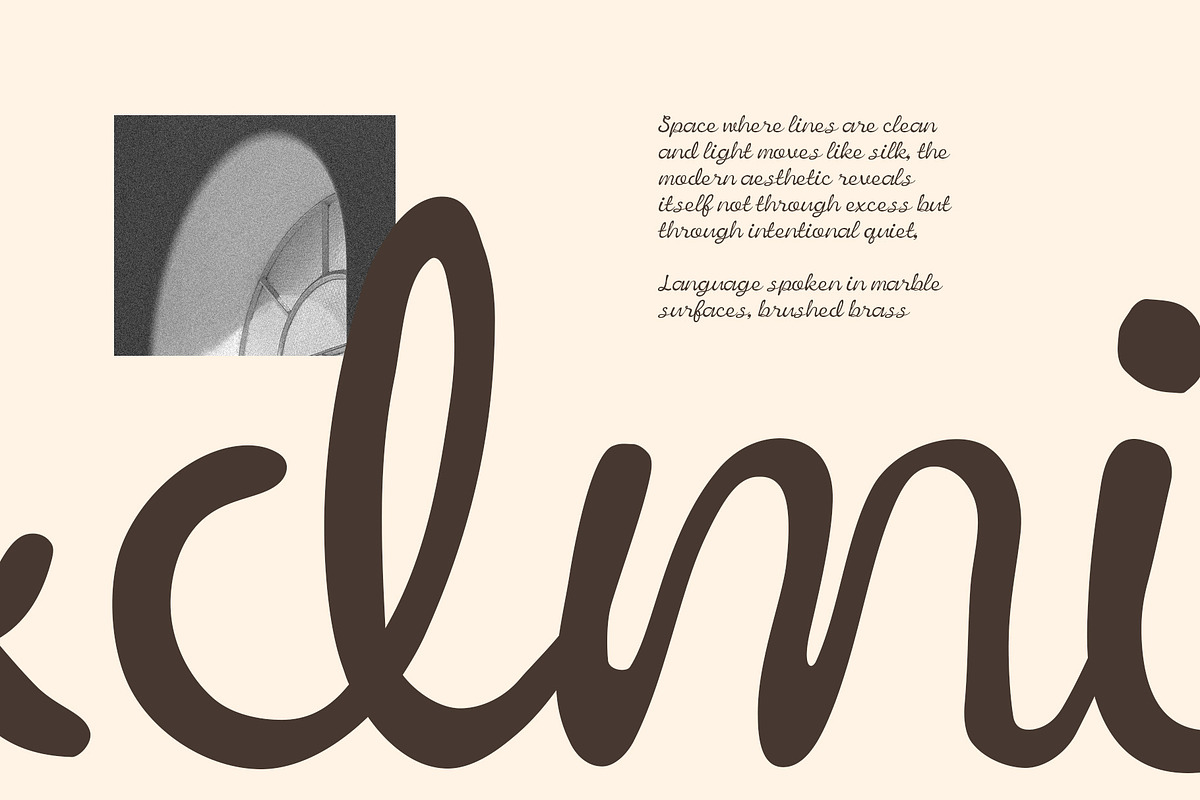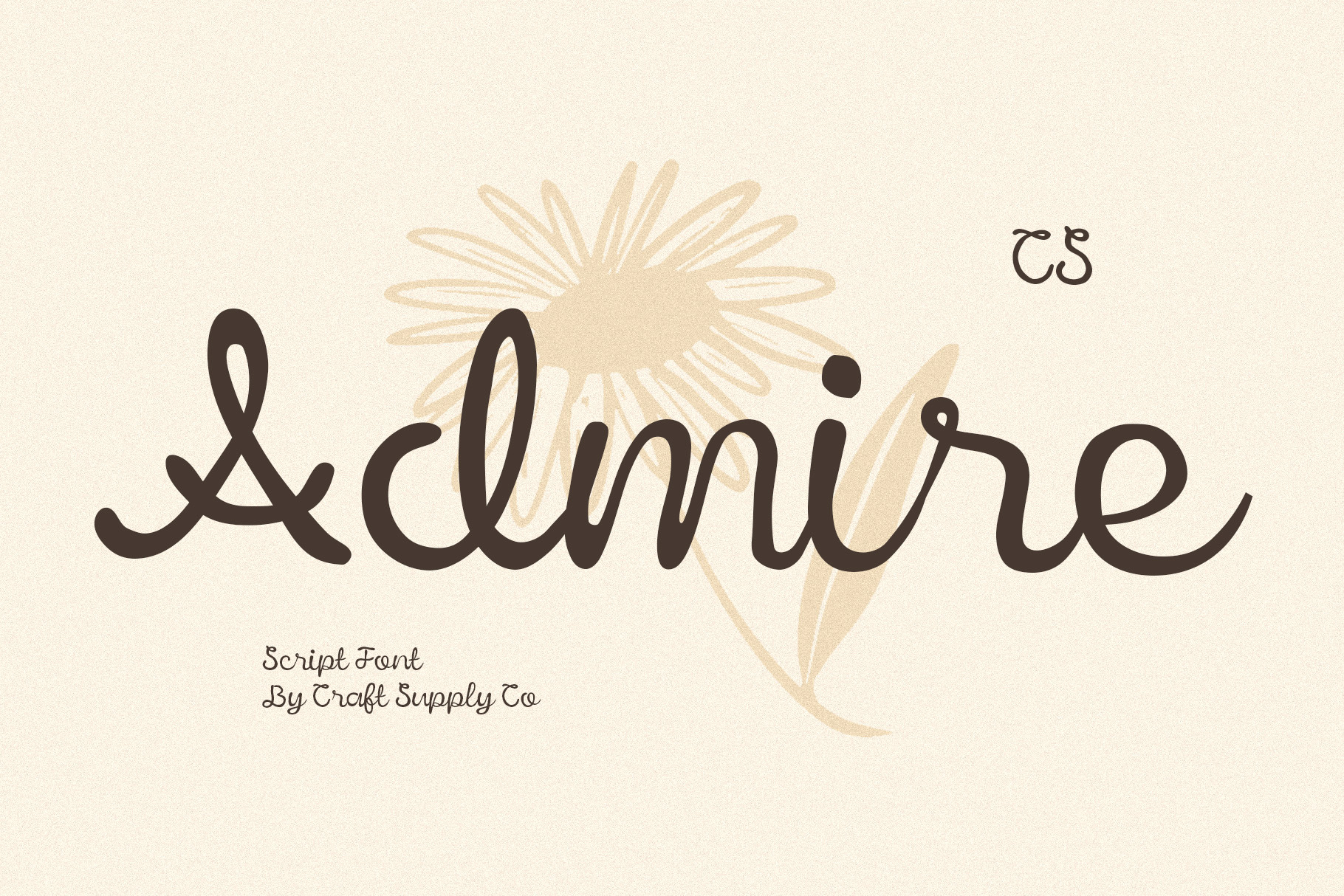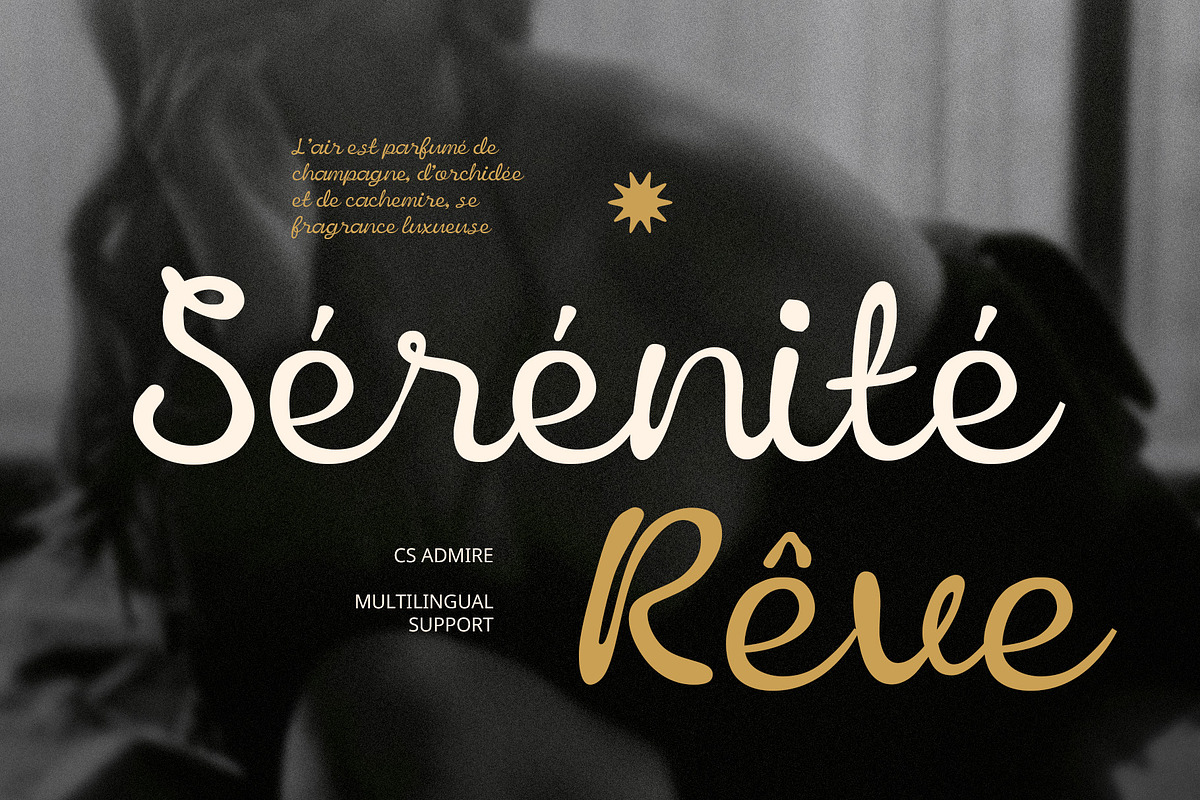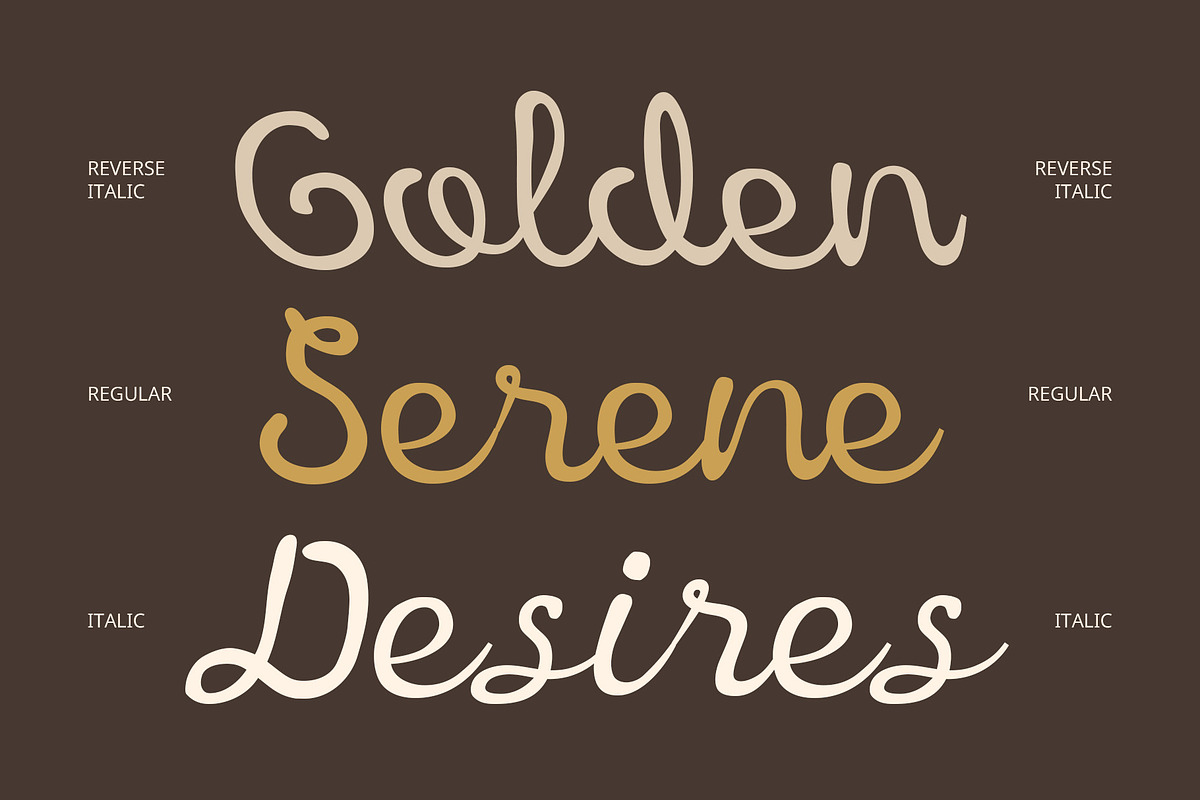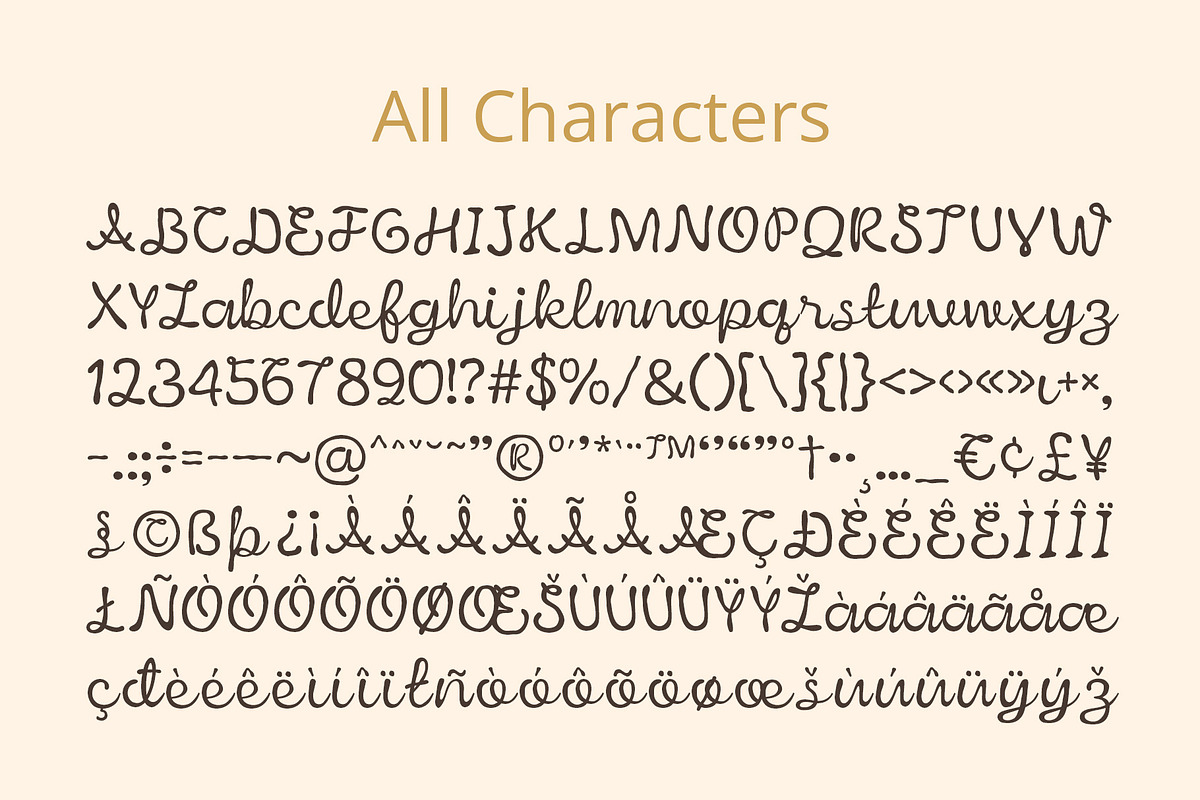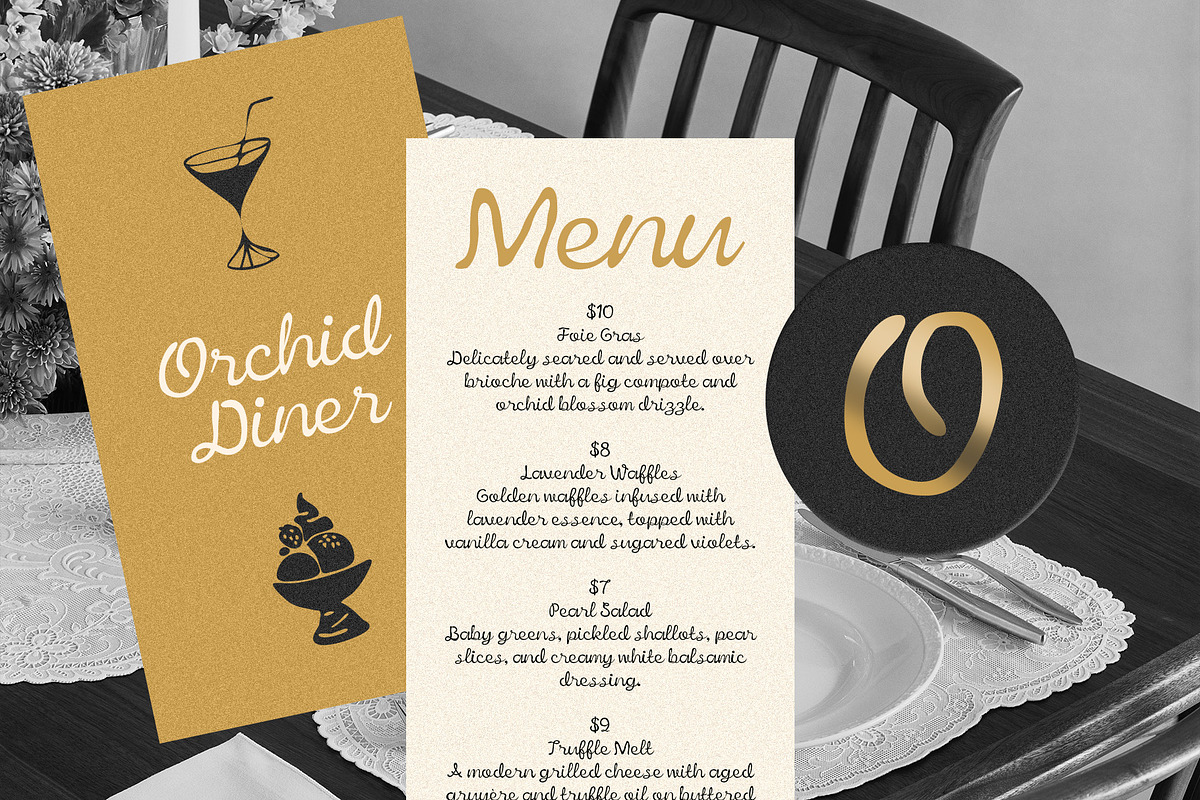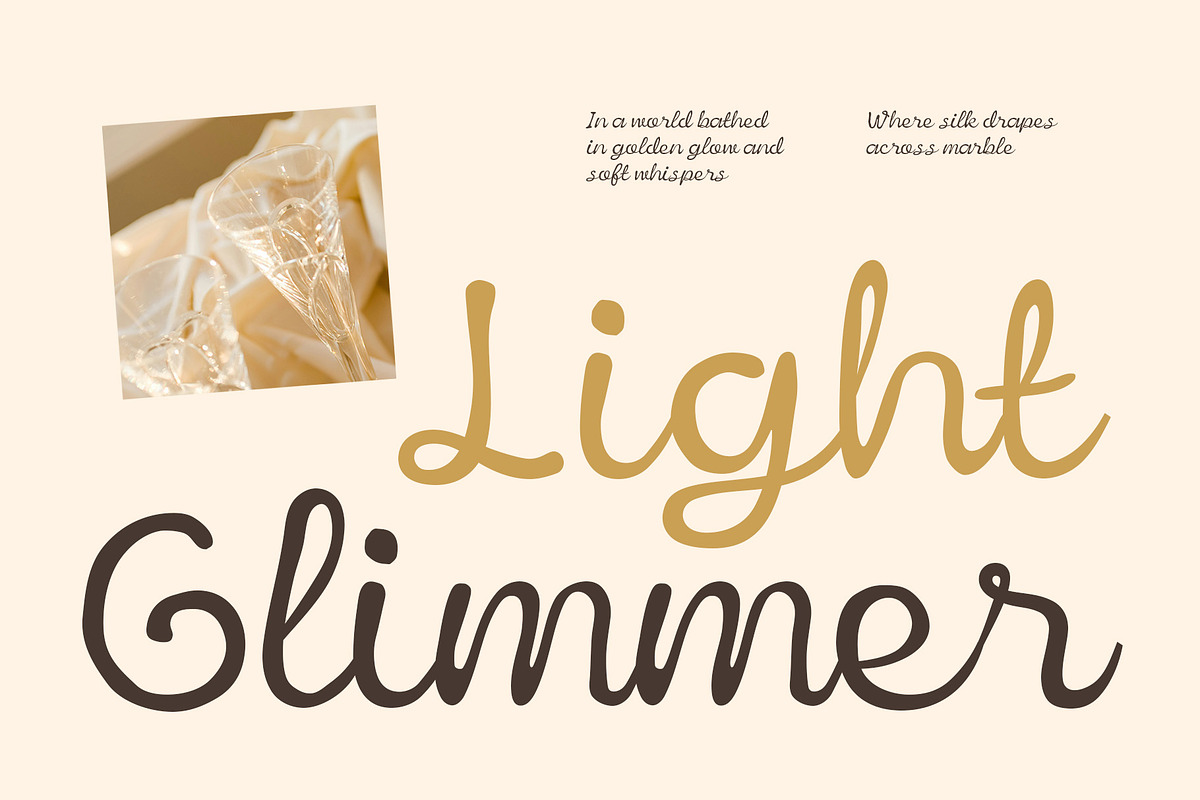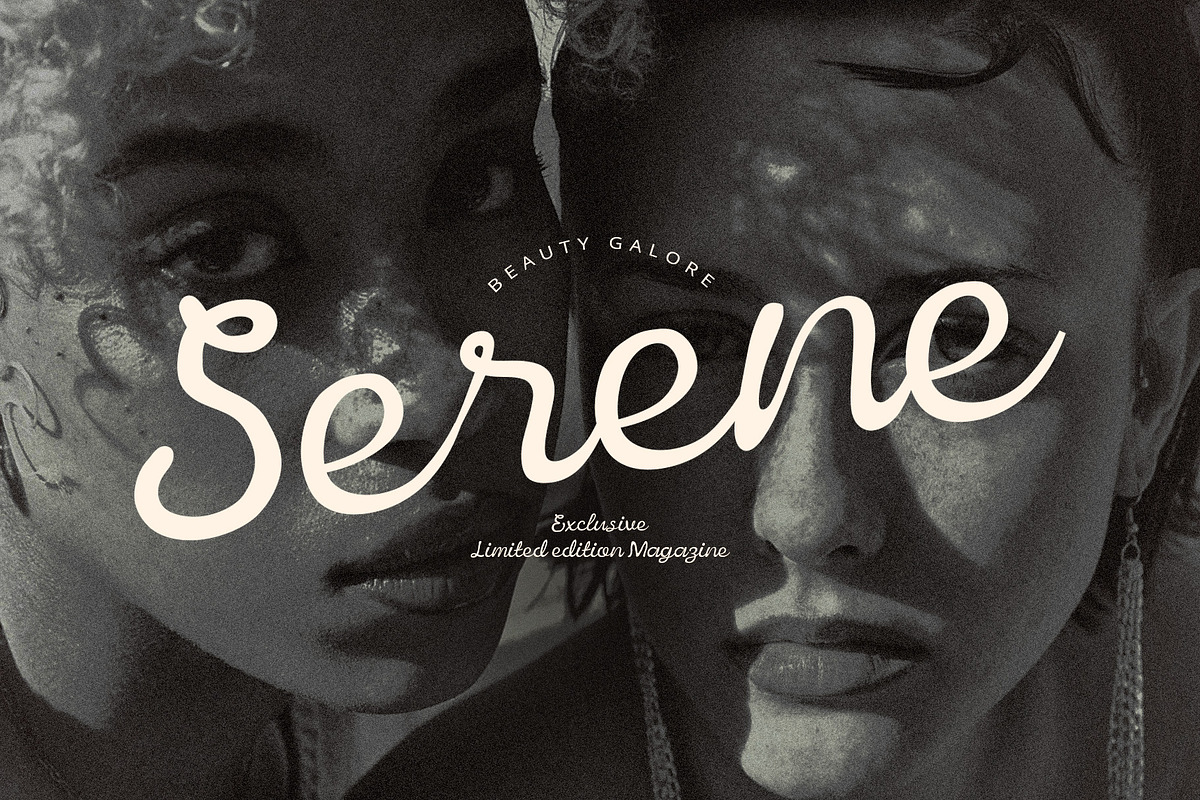
CS Admire – Script Font
CS Admire – A Modern Handwritten Script Full of Feminine Charm
Graceful, Expressive, and Creatively Confident CS Admire is a modern script font that brings together the fluid spontaneity of handwriting with a clean, contemporary design approach. Its smooth, flowing strokes create a charming and elegant impression, while maintaining just enough structure to feel refined and polished.
Personal Touch with Professional Poise Each letterform is thoughtfully drawn to mimic the natural rhythm of handwriting, evoking a sense of authenticity, creativity, and warmth. Despite its casual inspiration, the font maintains a professional clarity, making it suitable for both personal and commercial use.
Stylish and Versatile for Modern Design CS Admire is ideal for designs that lean toward a feminine, artistic, and stylish aesthetic—whether it’s for beauty product packaging, fashion branding, social media graphics, or signature-style logos. It’s perfect for any project that wants to appear soft yet confident, approachable yet elegant.
Where Handwriting Meets Elegance With its unique blend of handcrafted charm and visual balance, CS Admire stands out as a script font that feels human, creative, and aesthetically appealing—ideal for modern creators who want to express individuality through design. CS Admire is a modern script font that beautifully blends the charm of handwritten strokes with the polish of contemporary design. Its fluid, sweeping forms radiate elegance and softness, evoking a sense of beauty, grace, and stylish expression.
- CS Admire Regular
- CS Admire Italic
- CS Admire Reverse Italic